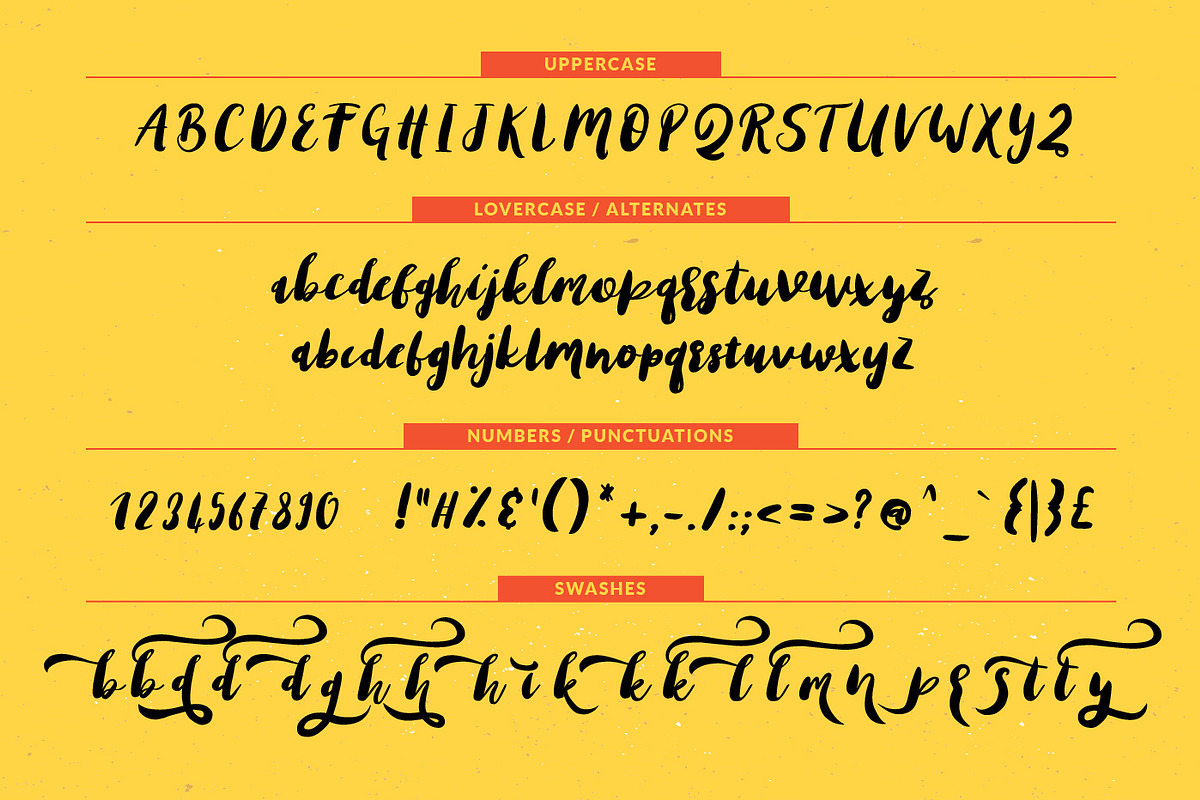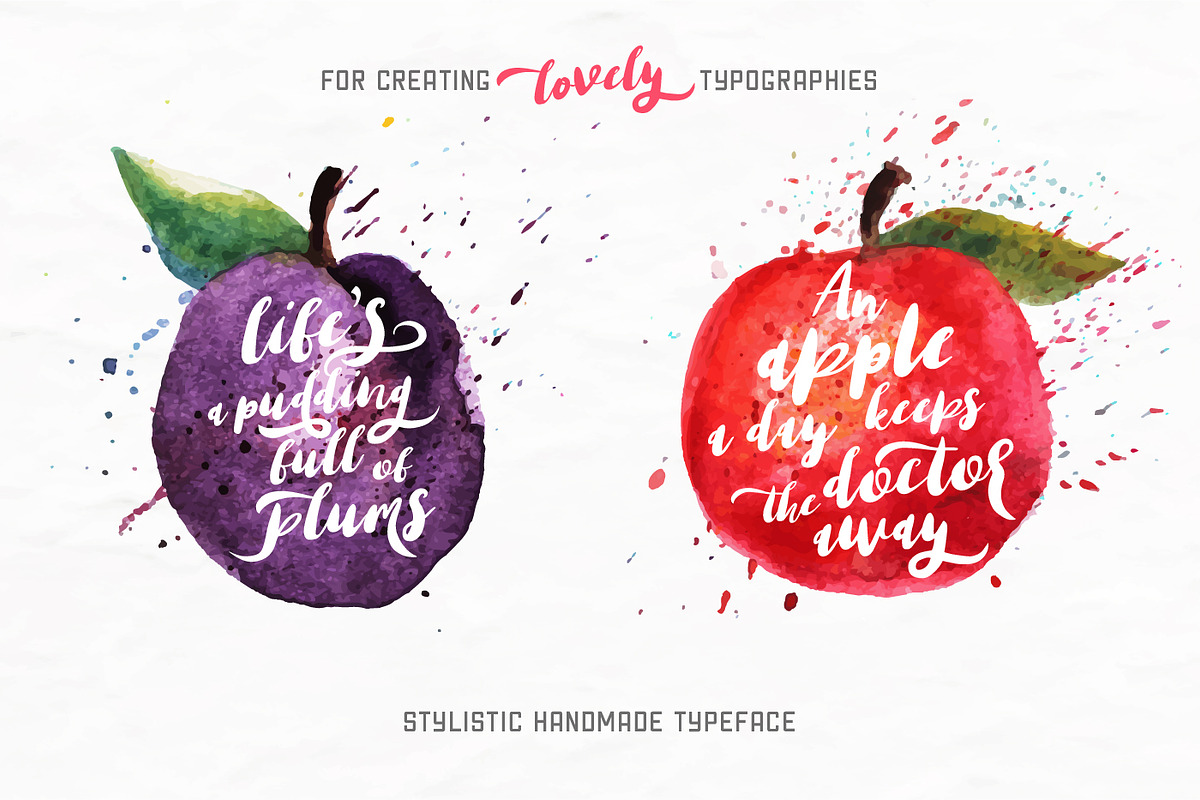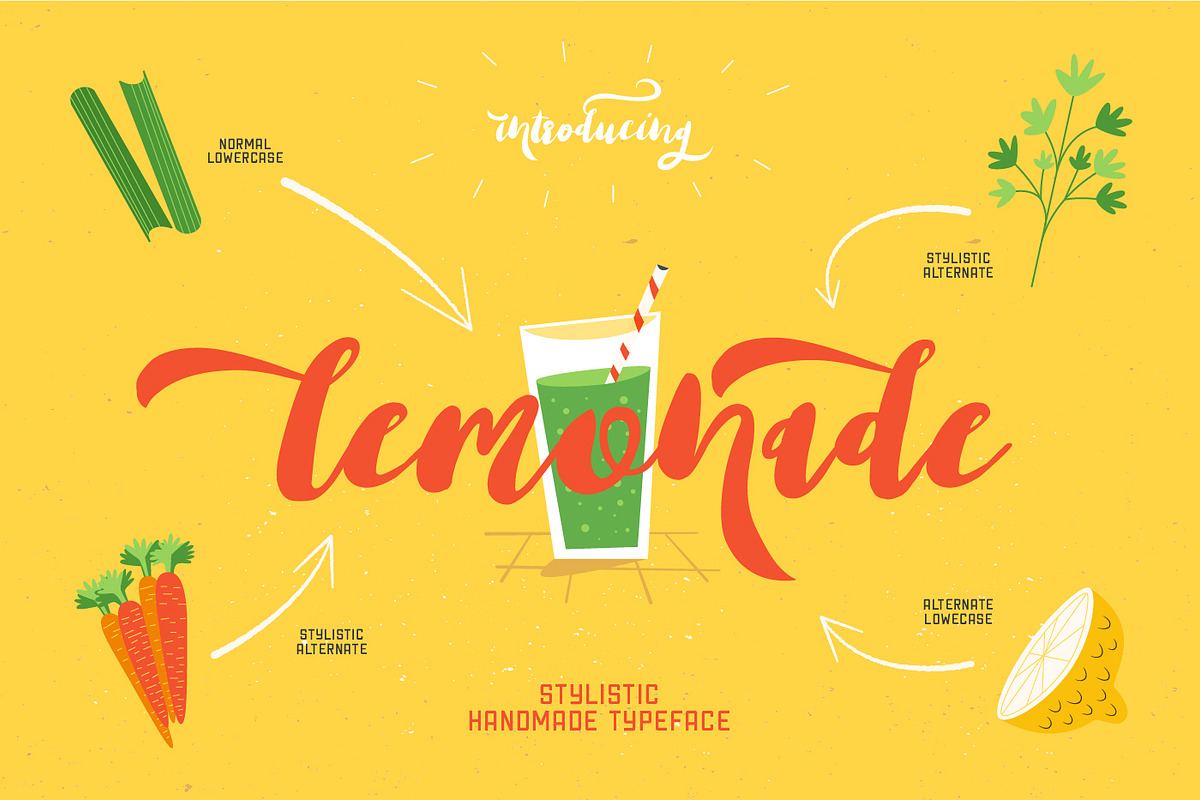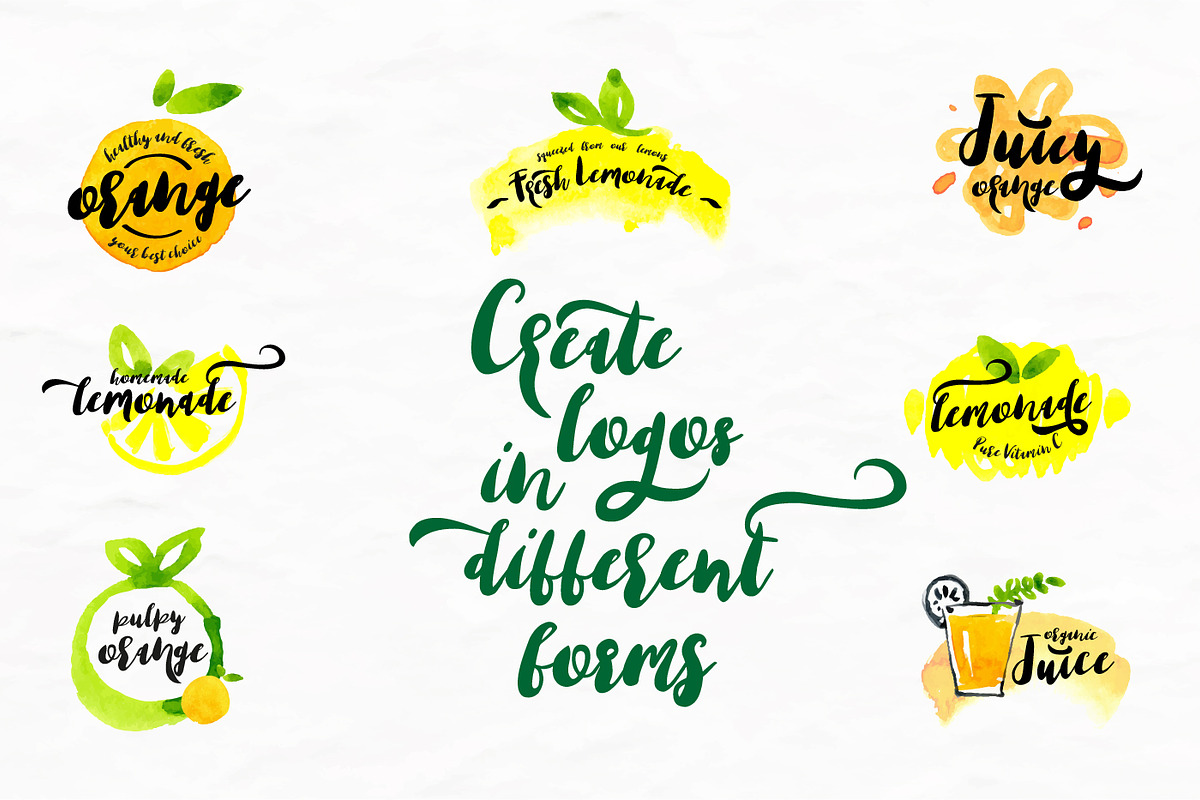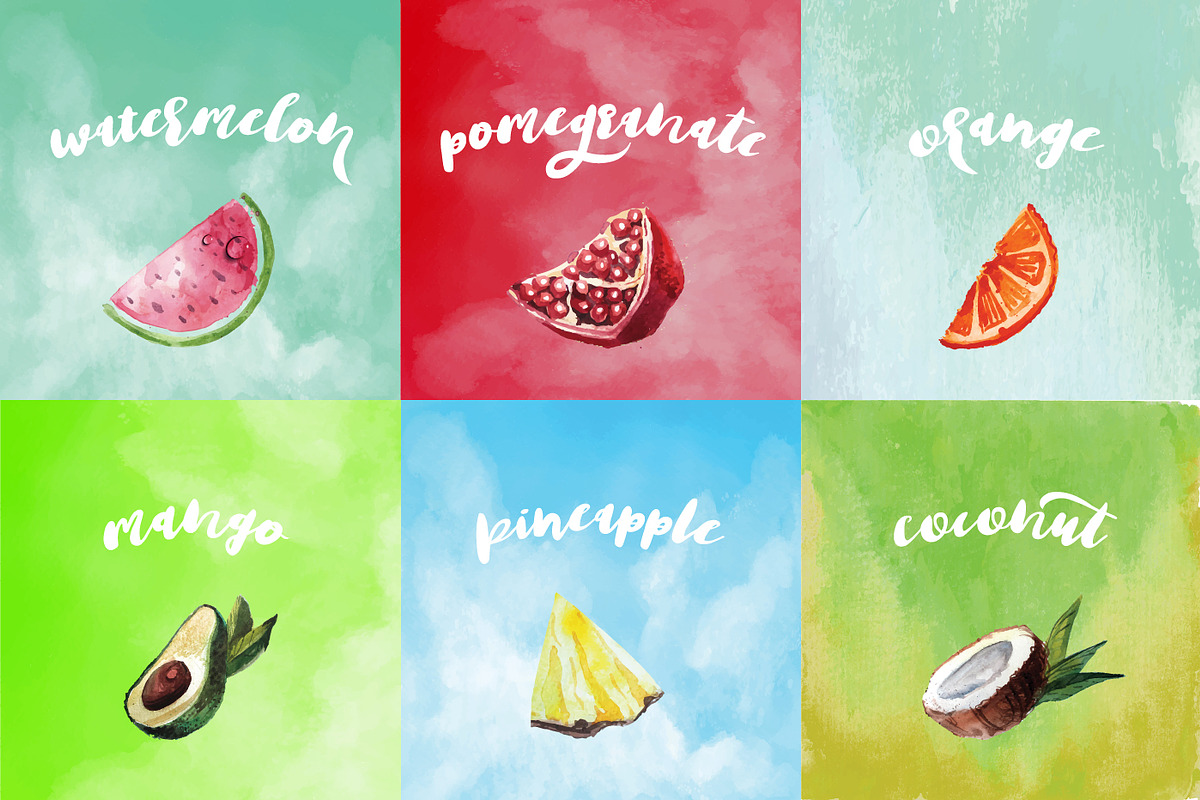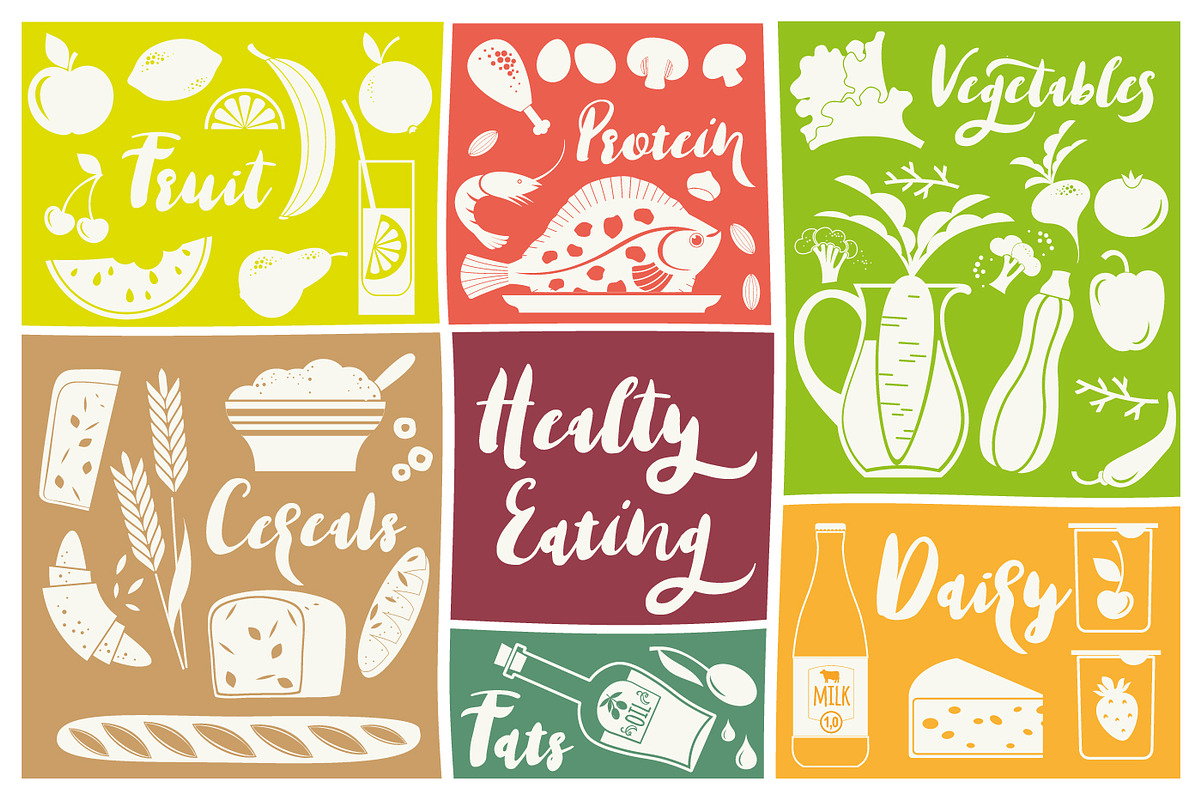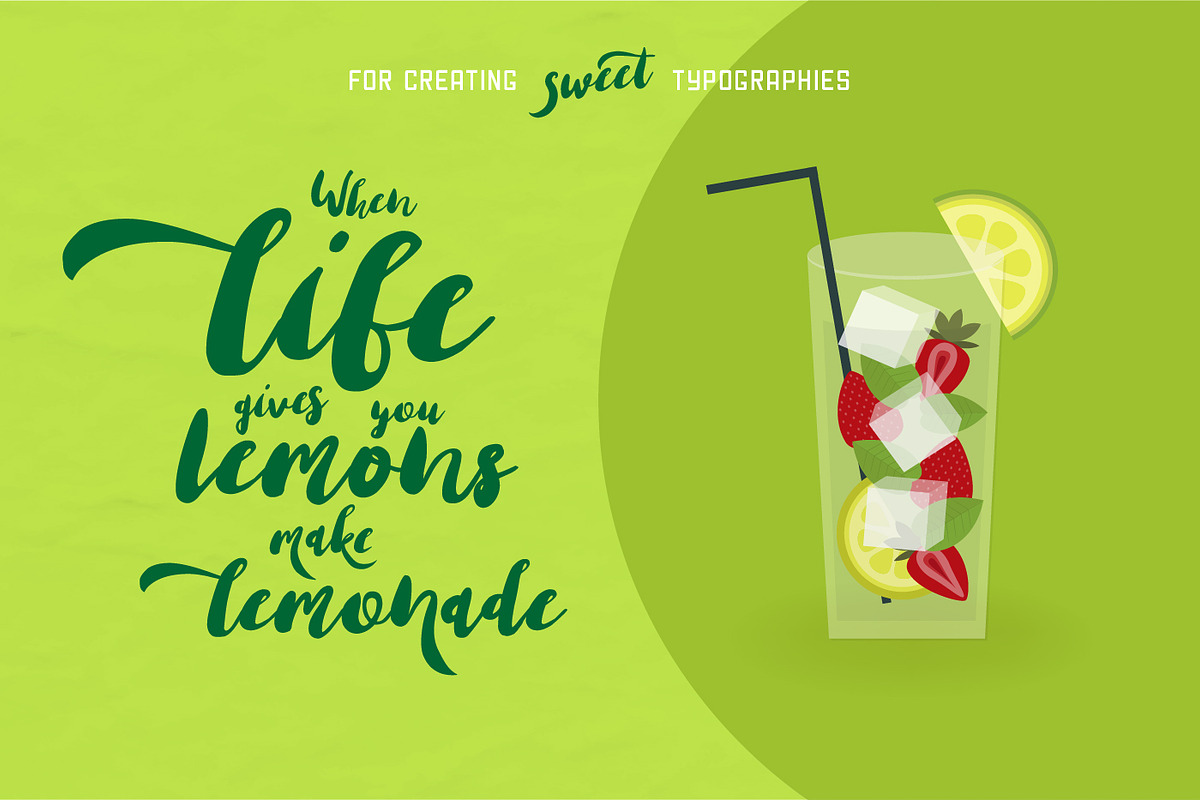
Lemonade Script Font
Lemonade Script Font by Design Dukkan is a font selected for branding, posters, packaging, typography.
- Alternate lowercase swashes characters
- Special lowercase characters
- Numbers and Symbols
Why Lemonade Script Font is worth a look
Lemonade Script Font by Design Dukkan fits naturally into Branding, posters, packaging, typography.